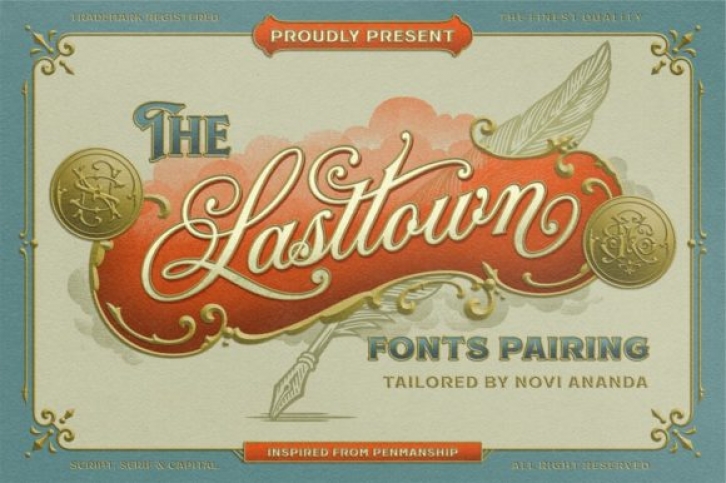
Lasttown is an exquisite trio font (two styles of serif and handwritten). This font is PUA encoded which means you can access all of the glyphs and swashes with ease! This font reads as strong, confident, and dynamic and can add tons of nostalgic character to your designs.